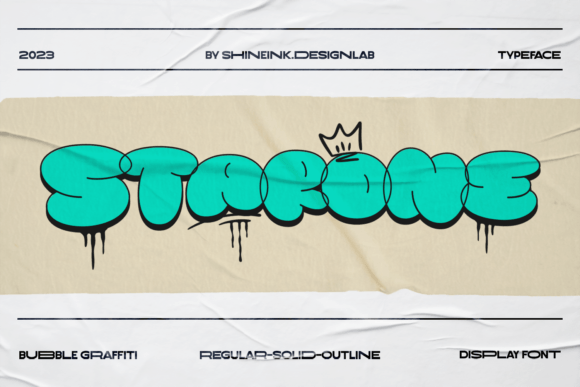
Journey into the realm of typography with Starone, a display font bursting with untamed urban energy. Its bold lines and sleek curves dance in perfect harmony, echoing the vibrant spirit of street art. Experience the raw, rebellious essence of this font, crafted by the talented artists at shineink.designlab, and unleash your creativity like never before.
With Starone, you'll capture attention and ignite emotions. This font isn't just a collection of letters; it's a gateway to a world where imagination reigns supreme. Its sharp edges and dynamic flow command attention, making it the perfect choice for projects that demand impact, individuality, and a touch of urban grit.
Dive headfirst into the realm of urban culture with Starone. Its unique character set is like a graffiti artist's spray can, leaving a trail of bold, unapologetic statements on your designs. It's a font that knows no boundaries, ready to elevate your posters, logos, t-shirt designs, and social media graphics to new heights.
Capture the essence of rebellion, the thrill of creativity, and the pulse of modernity. Starone is more than just a font; it's a creative weapon that empowers you to make a statement, to leave your mark on the world of design. Embrace the urban spirit, let your imagination run wild, and watch as your projects come alive with Starone's captivating charm.